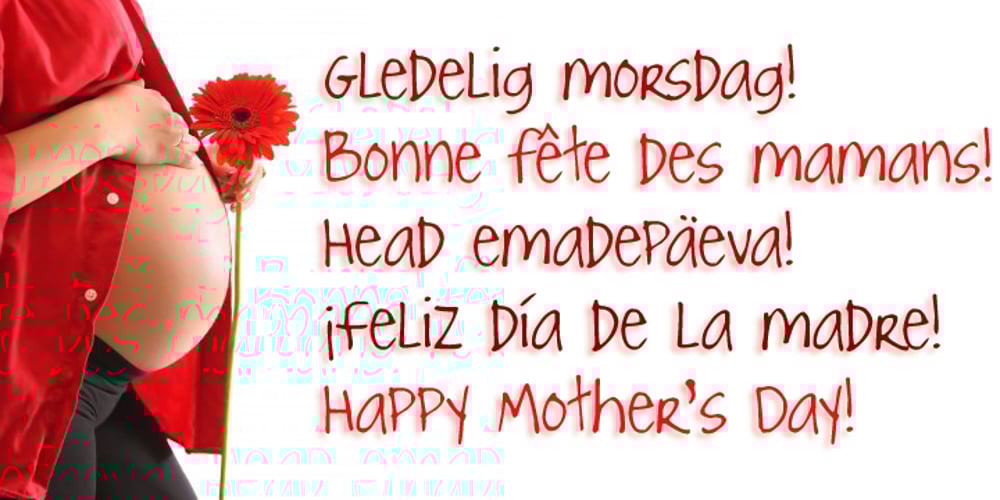
Joyful Juliana Pro Font Family was designed by Roger S. Nelsson, Kimberly Geswein and published by CheapProFonts. Joyful Juliana Pro contains 1 styles and family package options. This is Kimberly Gesweins own handwriting, named for a sweet California friend of hers. Kimberly has spotted the original free version of this font in use in the far outskirts of China, and now – with the expanded language support – this Pro version can also be used in more remote parts of the western world. ALL fonts from CheapProFonts have very extensive language support: They contain some unusual diacritic letters (some of which are contained in the Latin Extended-B Unicode block) supporting: Cornish, Filipino (Tagalog), Guarani, Luxembourgian, Malagasy, Romanian, Ulithian and Welsh. They also contain all glyphs in the Latin Extended-A Unicode block (which among others cover the Central European and Baltic areas) supporting: Afrikaans, Belarusian (Lacinka), Bosnian, Catalan, Chichewa, Croatian, Czech, Dutch, Esperanto, Greenlandic, Hungarian, Kashubian, Kurdish (Kurmanji), Latvian, Lithuanian, Maltese, Maori, Polish, Saami (Inari), Saami (North), Serbian (latin), Slovak(ian), Slovene, Sorbian (Lower), Sorbian (Upper), Turkish and Turkmen. And they of course contain all the usual “western” glyphs supporting: Albanian, Basque, Breton, Chamorro, Danish, Estonian, Faroese, Finnish, French, Frisian, Galican, German, Icelandic, Indonesian, Irish (Gaelic), Italian, Northern Sotho, Norwegian, Occitan, Portuguese, Rhaeto-Romance, Sami (Lule), Sami (South), Scots (Gaelic), Spanish, Swedish, Tswana, Walloon and Yapese.